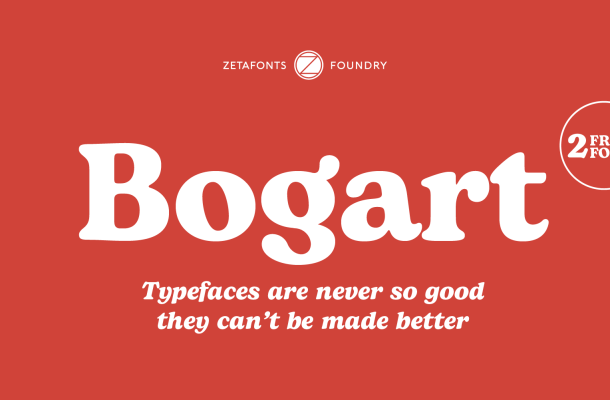
Bogart Serif Typeface Free
Bogart Serif Typeface unique chic typeface with any beauty shape and fancy ligature suitable for brand and logo design. Bogart has been designed in 2020 by Francesco Canovaro as a personal homage to the iconic look of low-contrast old-style fat faces, like Cooper Black (Oswald Bruce Cooper, 1922) and Goudy Heavy Face (Frederic W. Goudy and Sol Hess, 1925-1932).
Originating from the modern old style of Bookman, these muddy, goopy shapes found their pop culture iconic status thanks to rub-on transfers and phototypesetting systems in the 1960s and 1970s. Positively bursting with hippie energy and exuberant vitality, they often included an extensive repertoire of swash characters, bridging the space between lettering and typography.